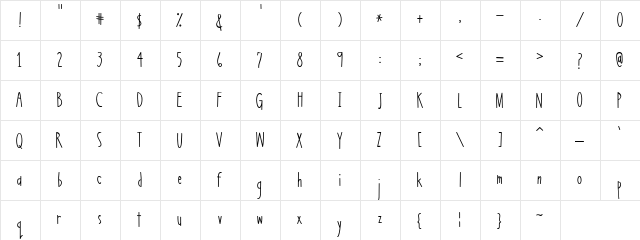
CK Slender Regular
Design Context for CK Slender Typeface
CK Slender is a composed and adaptable typeface that performs quietly and consistently across a wide range of design contexts.